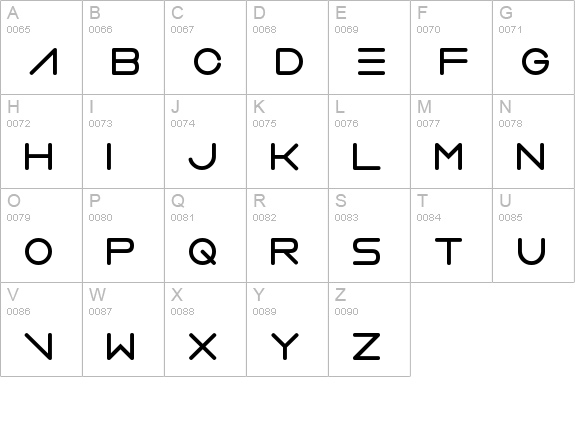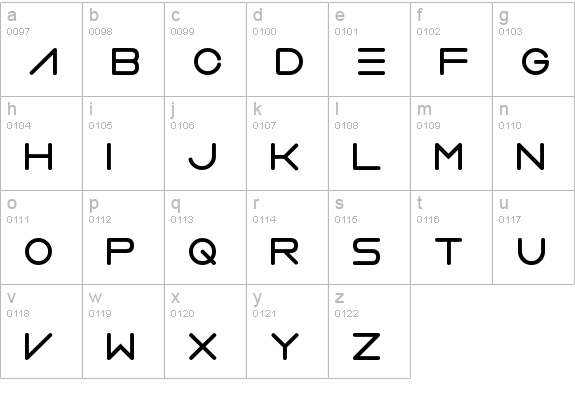
Vermin Vibes 2 Soft Font Details
Vermin Vibes 2 Soft font is a captivating and versatile typeface that exudes a sense of playful yet edgy charm. With its unique and intricate design, this font is sure to make a lasting impression on any project or design. Featuring soft, rounded edges and a subtle touch of irregularity, Vermin Vibes 2 Soft font adds a touch of whimsy to any text. Its smooth lines and delicate curves create a sense of movement and fluidity, making it perfect for a wide range of applications, including logos, branding, packaging, posters, and more. But what makes Vermin Vibes 2 Soft font truly remarkable is that it is freely available to download at FontsMarket.com. Yes, you heard it right – this incredible font can be yours without spending a dime. Whether you're a professional designer or a hobbyist, this free font offers endless creative possibilities without breaking the bank. With its extensive character set, Vermin Vibes 2 Soft font supports multiple languages, ensuring that your message can be effectively communicated to a global audience. Its legibility and readability make it suitable for both small and large sizes, ensuring that your text remains clear and easily accessible. So why wait? Download Vermin Vibes 2 Soft font today and unleash your creativity. Embrace the freedom of expression and bring your designs to life with this stunning, free font. Get ready to captivate your audience and make a lasting impression with Vermin Vibes 2 Soft font, available for free at FontsMarket.com.